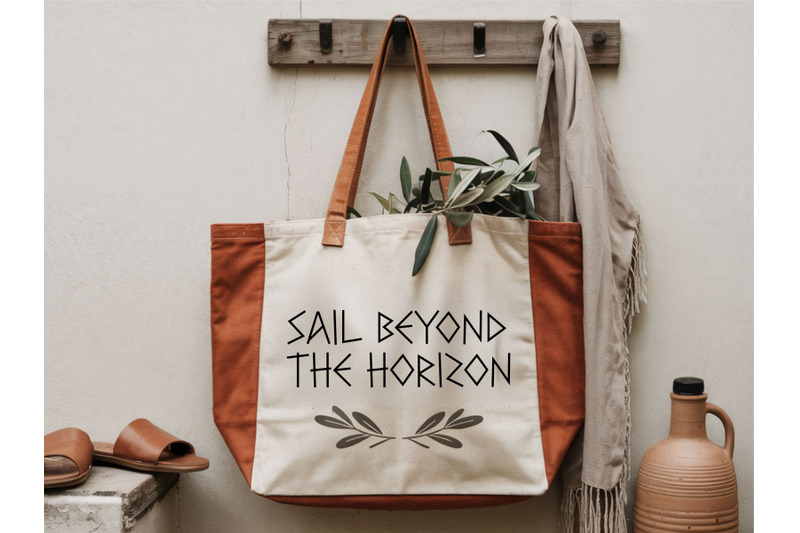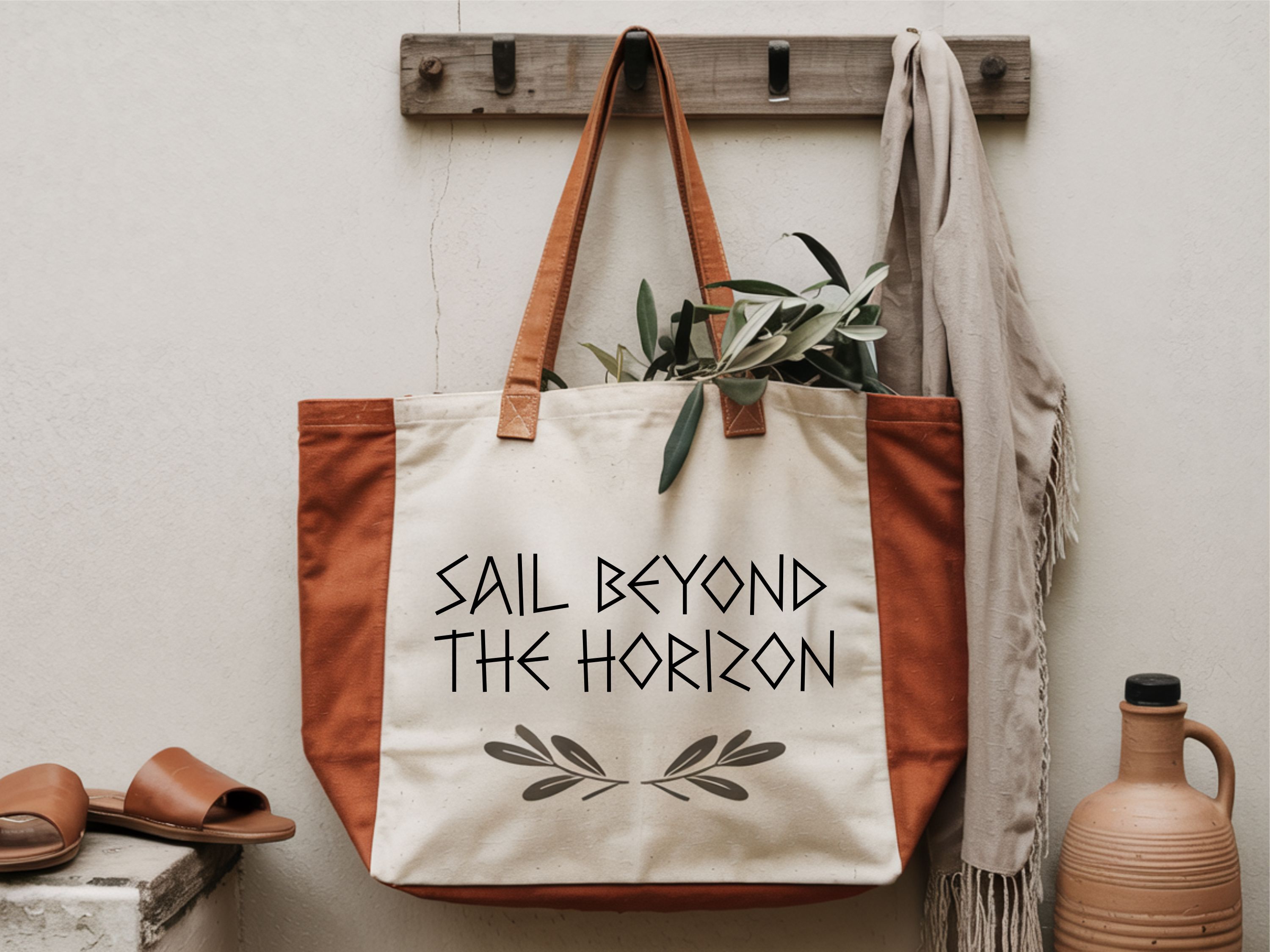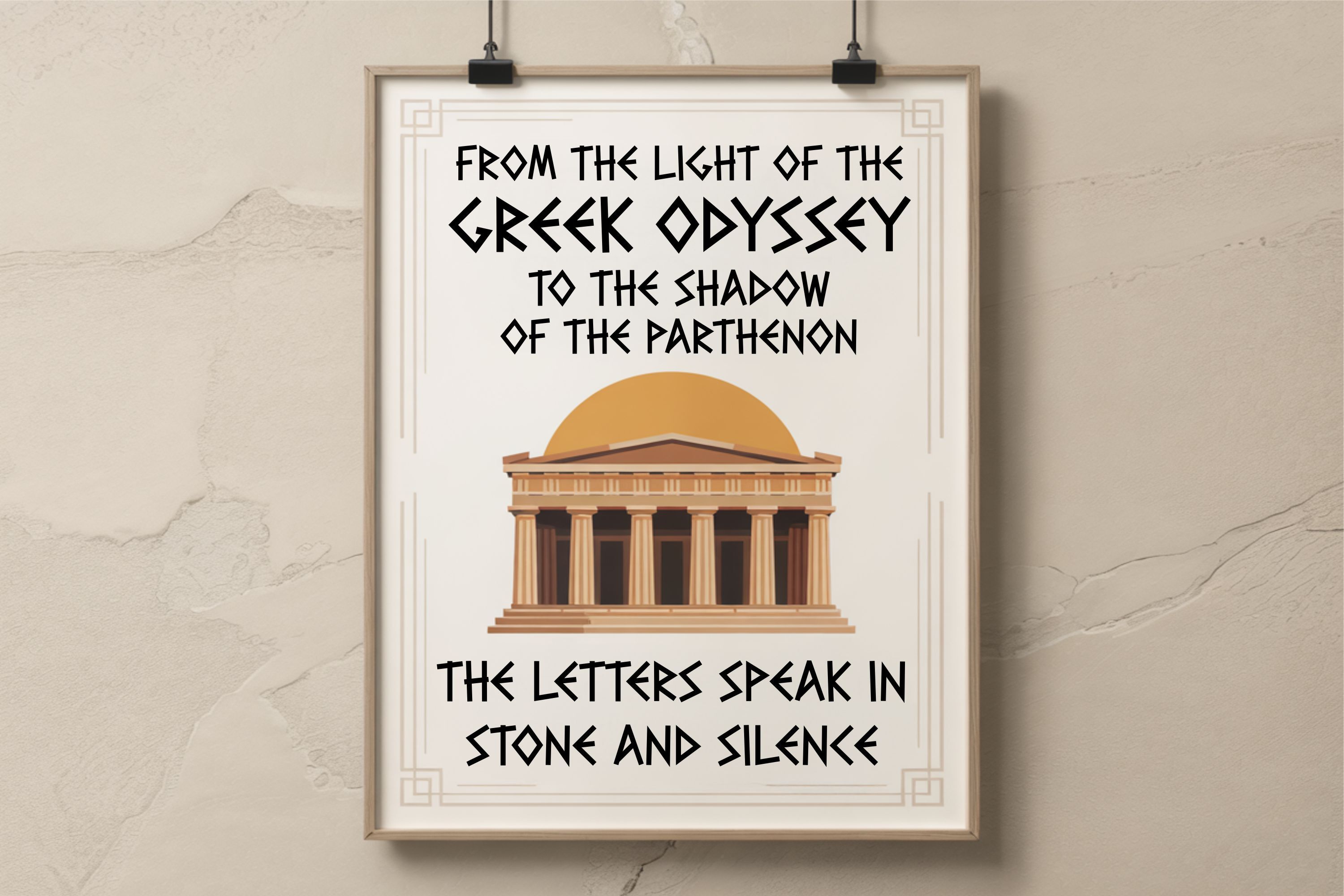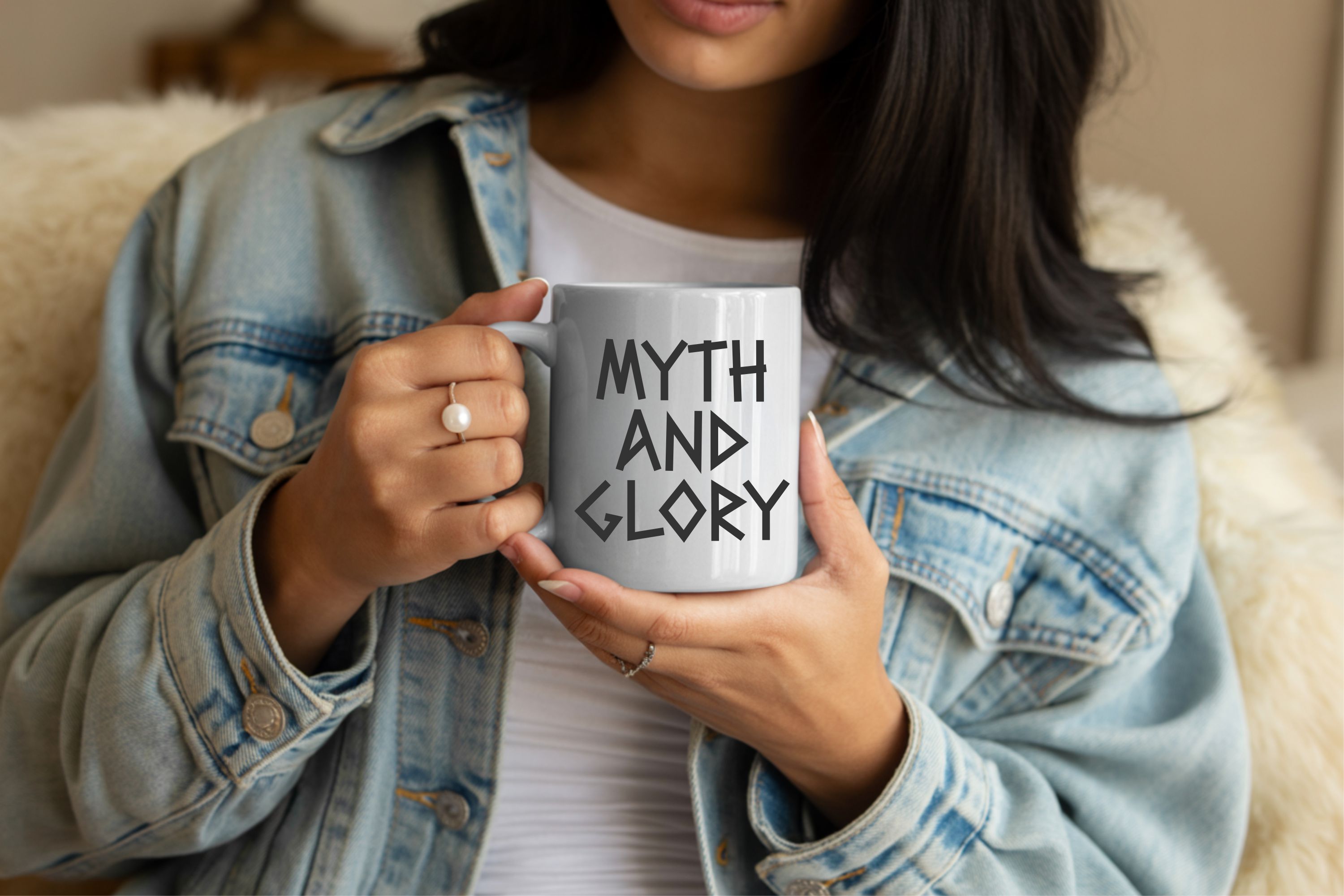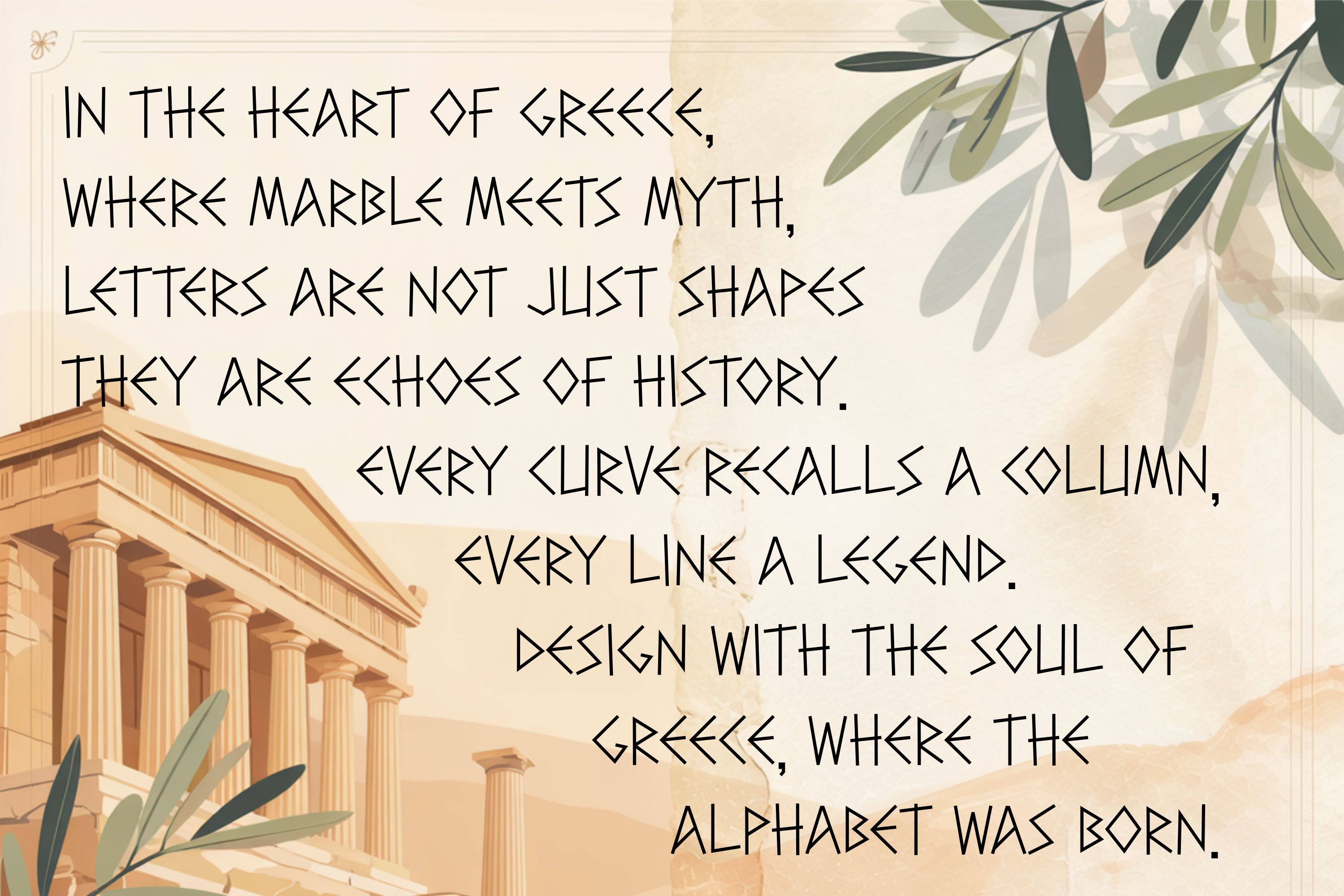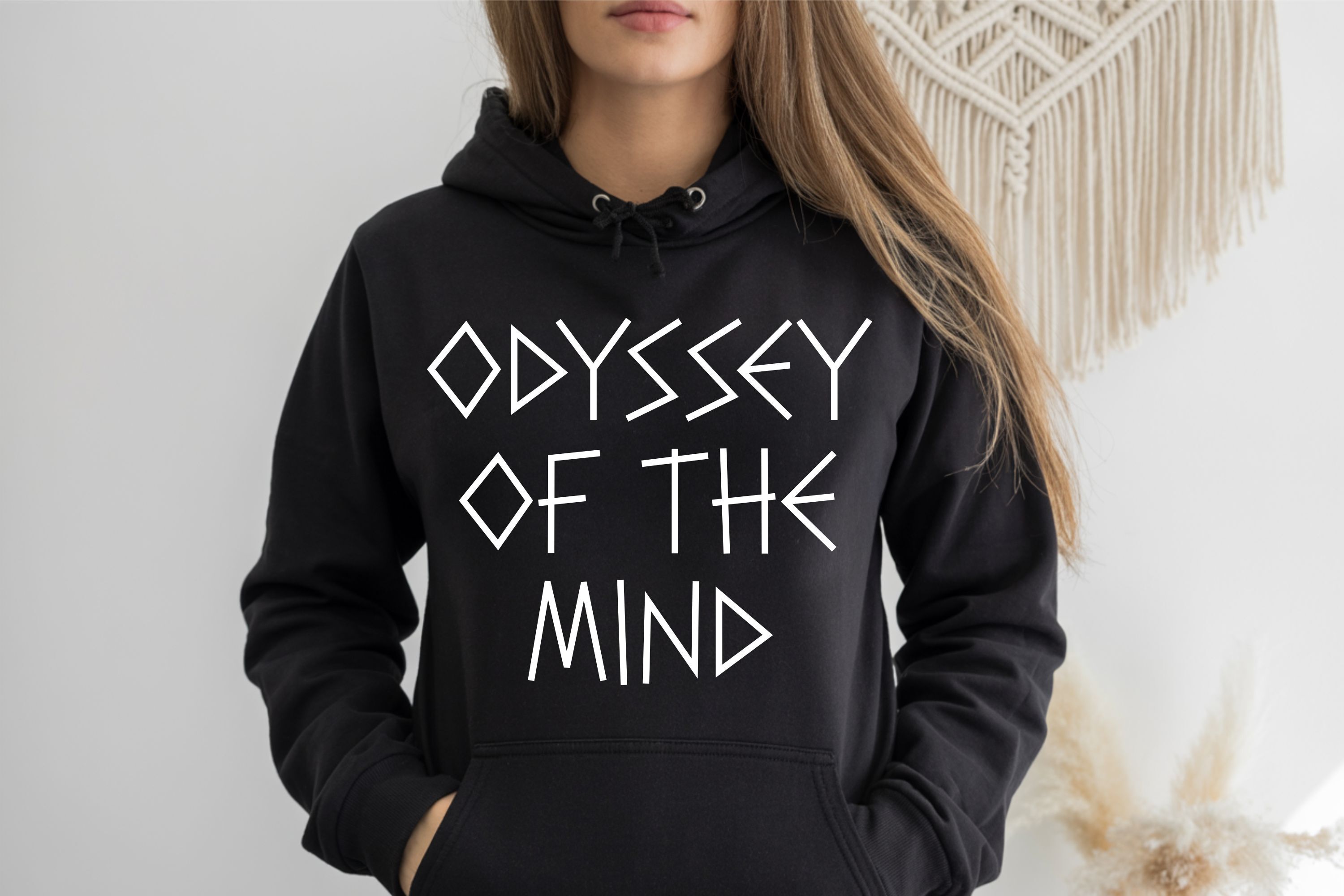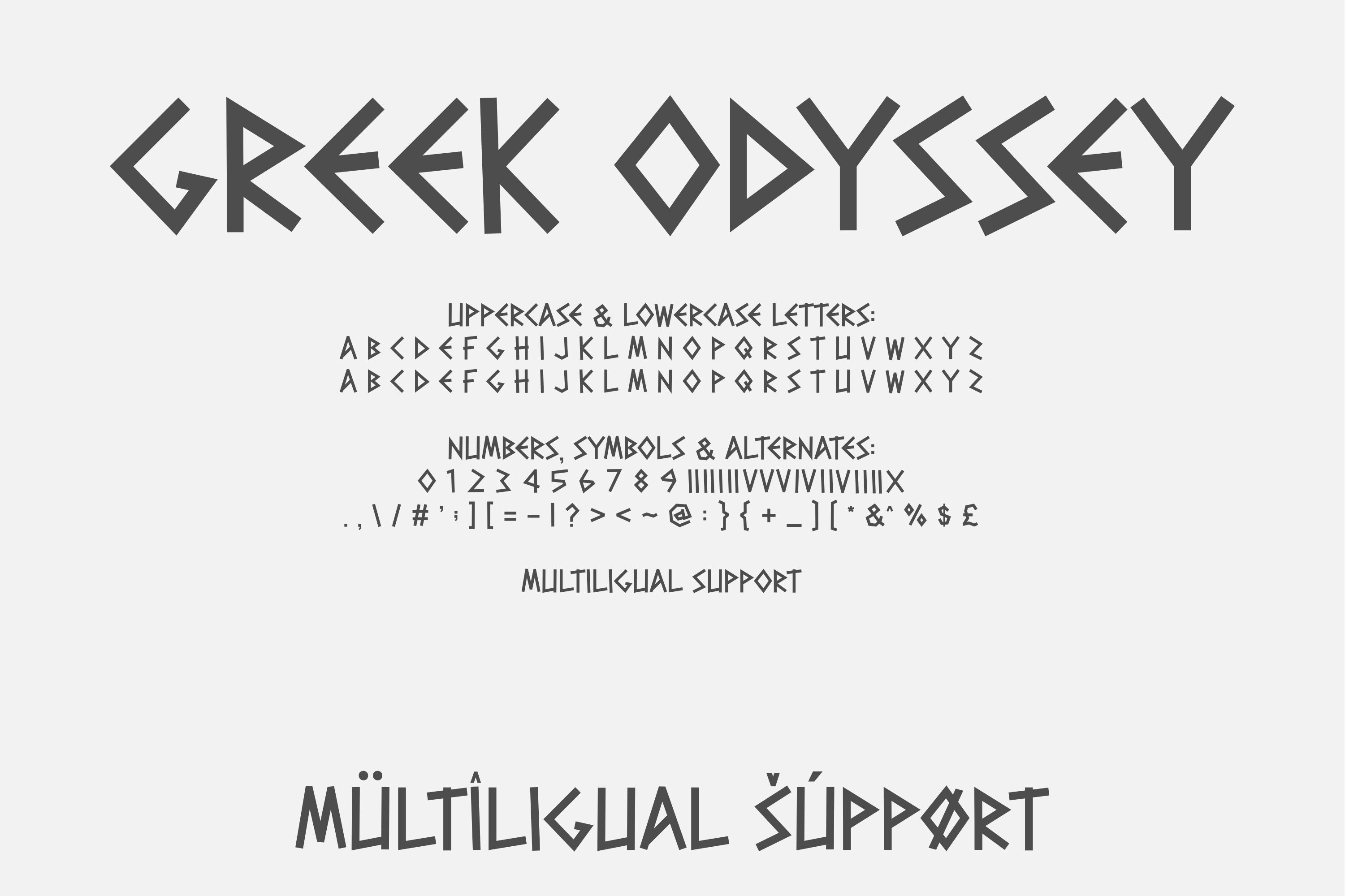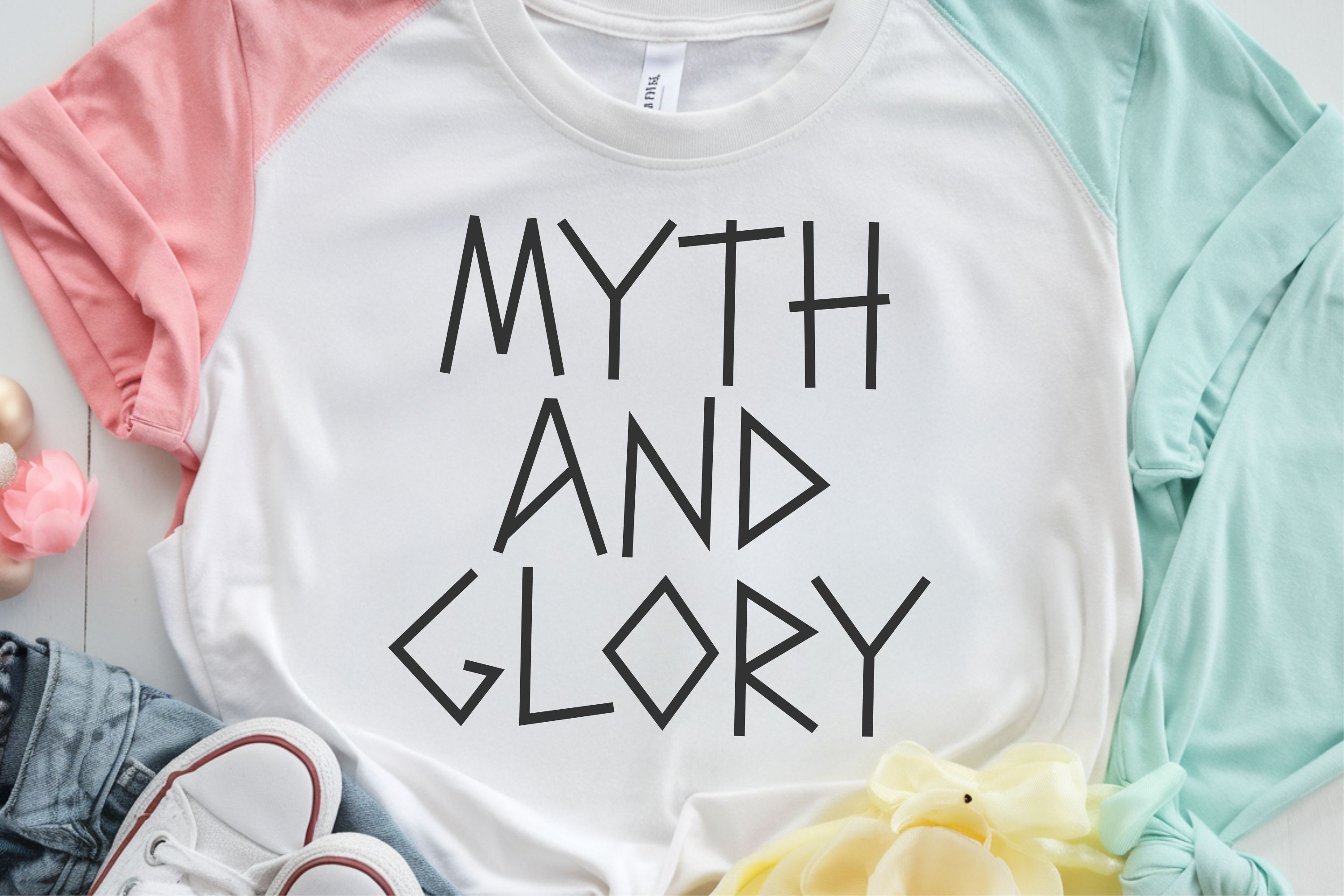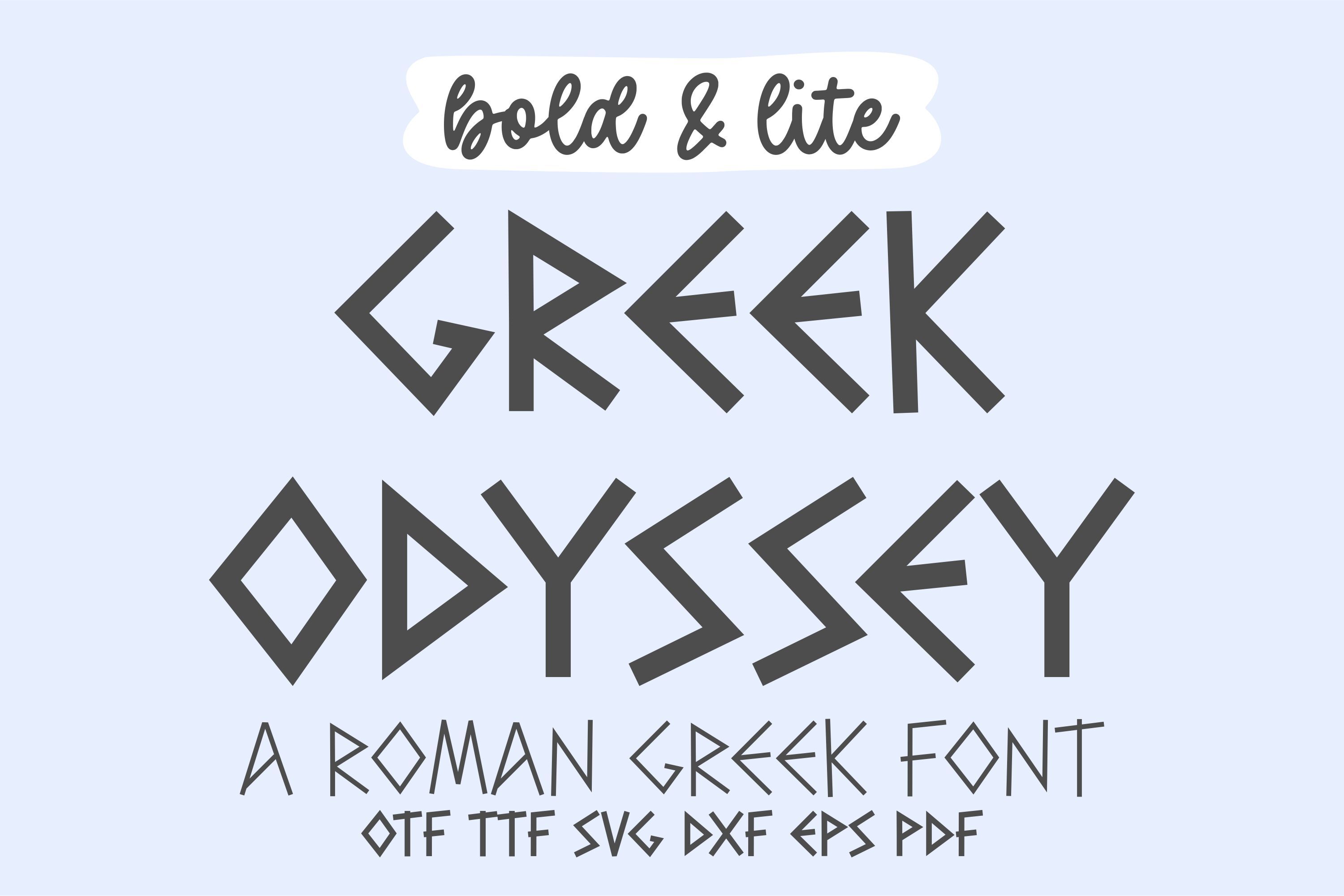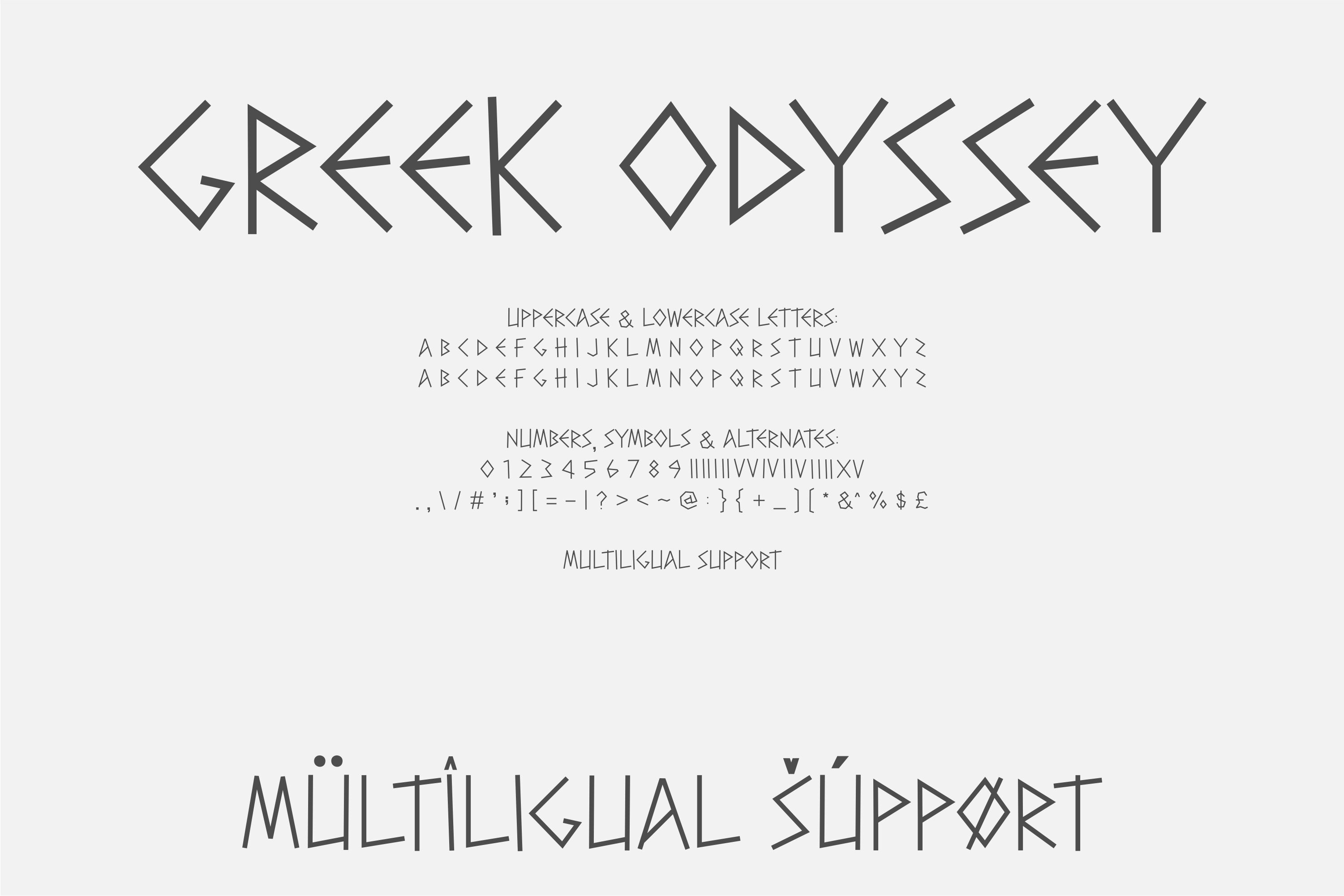
Greek Odyssey is a bold and lite Roman Greek font inspired by the elegance of ancient Greece and the artistry of classical architecture. Its sharp, geometric letterforms echo the lines of Greek columns and the precision of marble carvings, making it ideal for projects that need a historical yet timeless look. This versatile font is perfect for apparel, posters, wedding invitations, travel designs, book covers, educational materials, and branding.
The two included styles — Bold and Lite — allow for creative combinations, whether you’re aiming for strong impact or subtle sophistication. Each character is meticulously designed for clarity and style, ensuring your text stands out in any medium. Greek Odyssey includes uppercase and lowercase letters, numbers, punctuation, symbols, alternates, and multilingual support for added versatility.
Greek Odyssey Font Bold and Lite | Roman Greek Alphabet